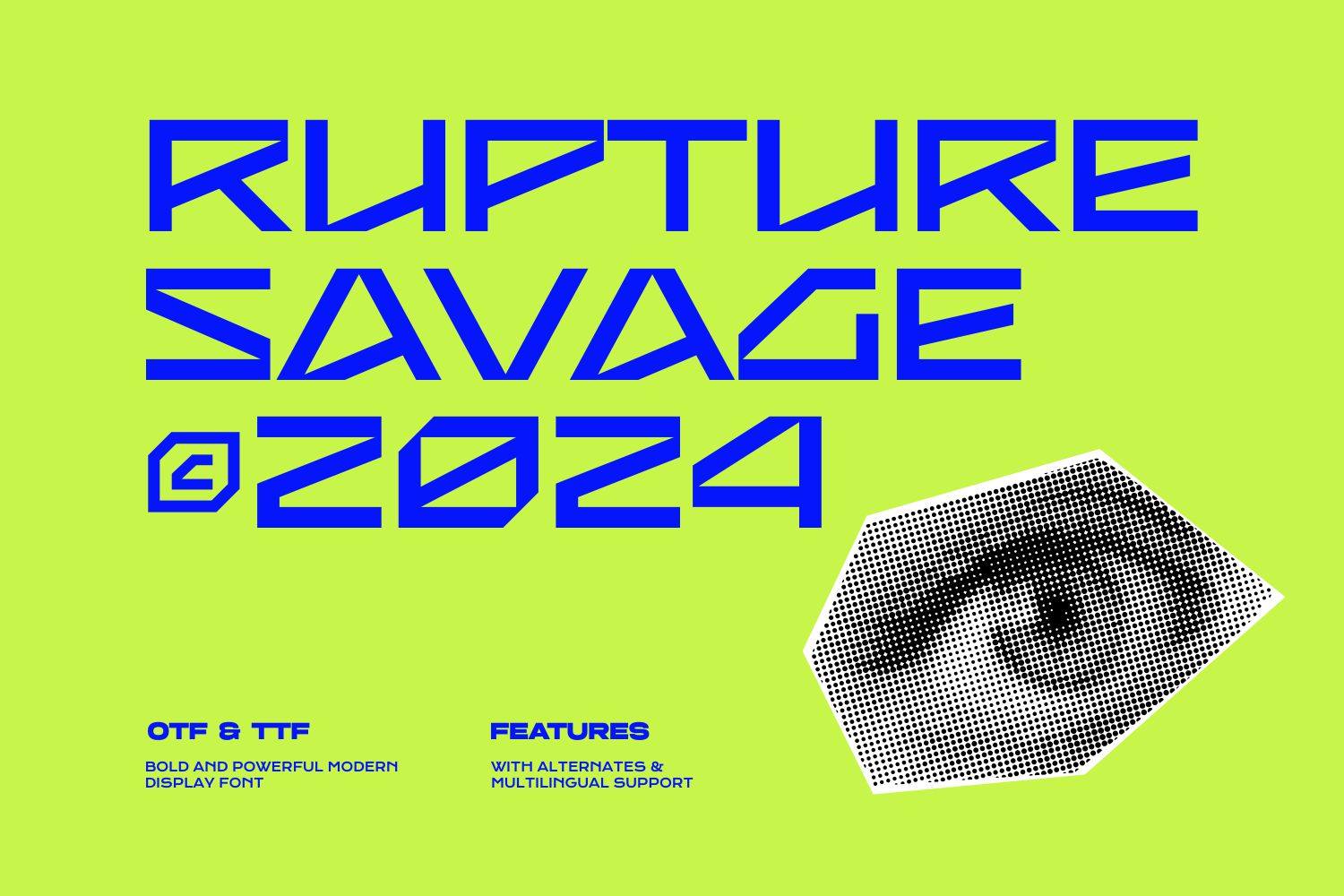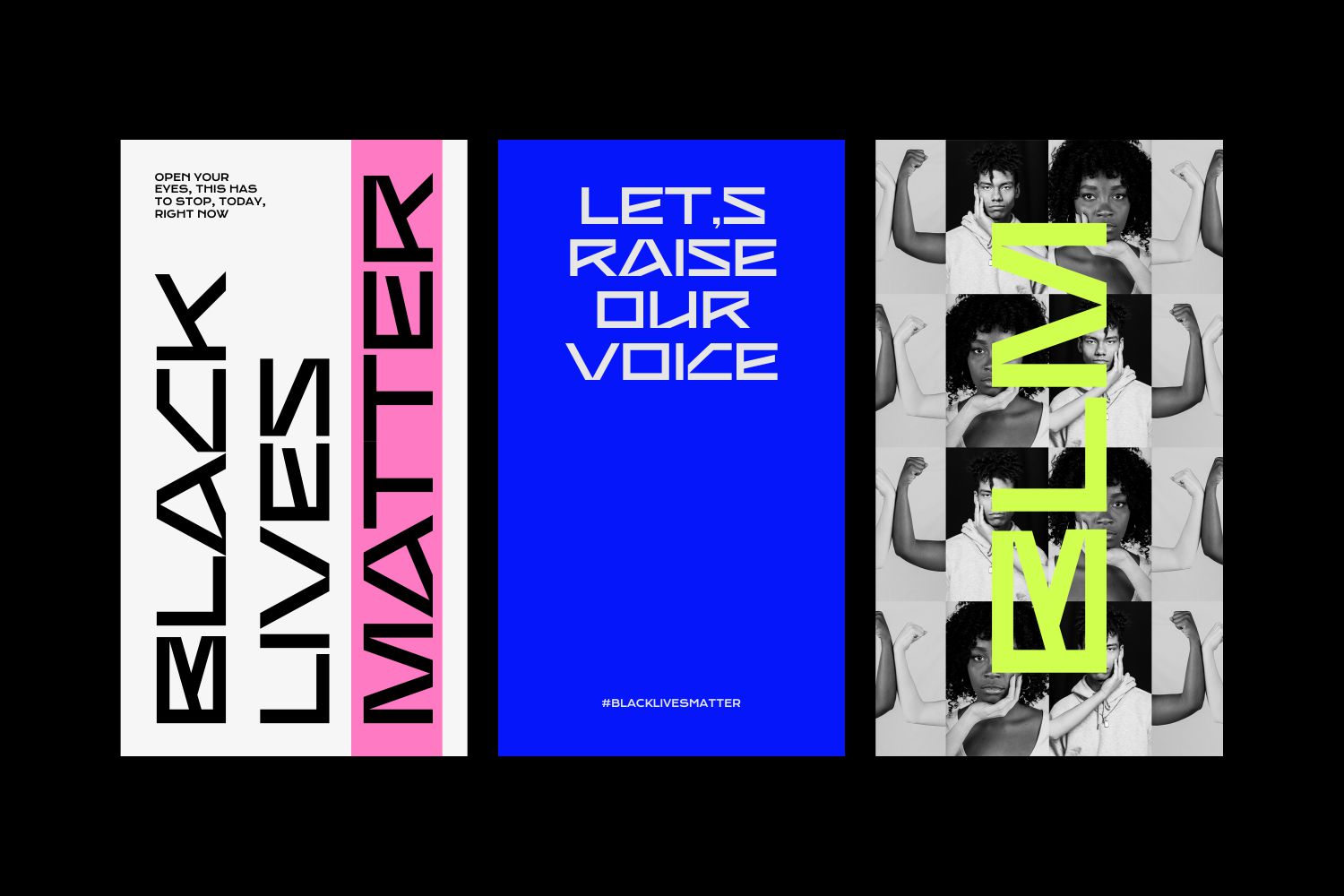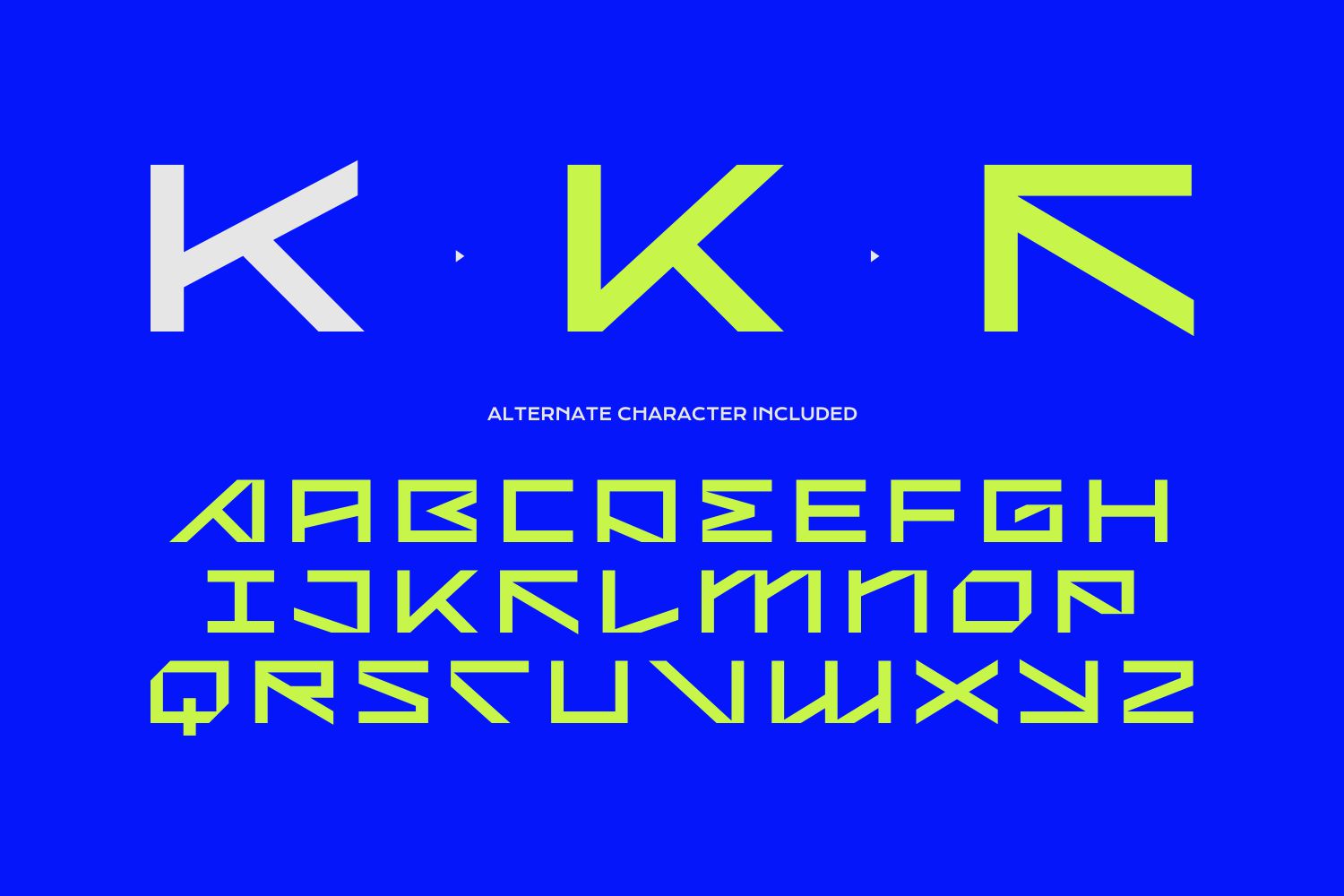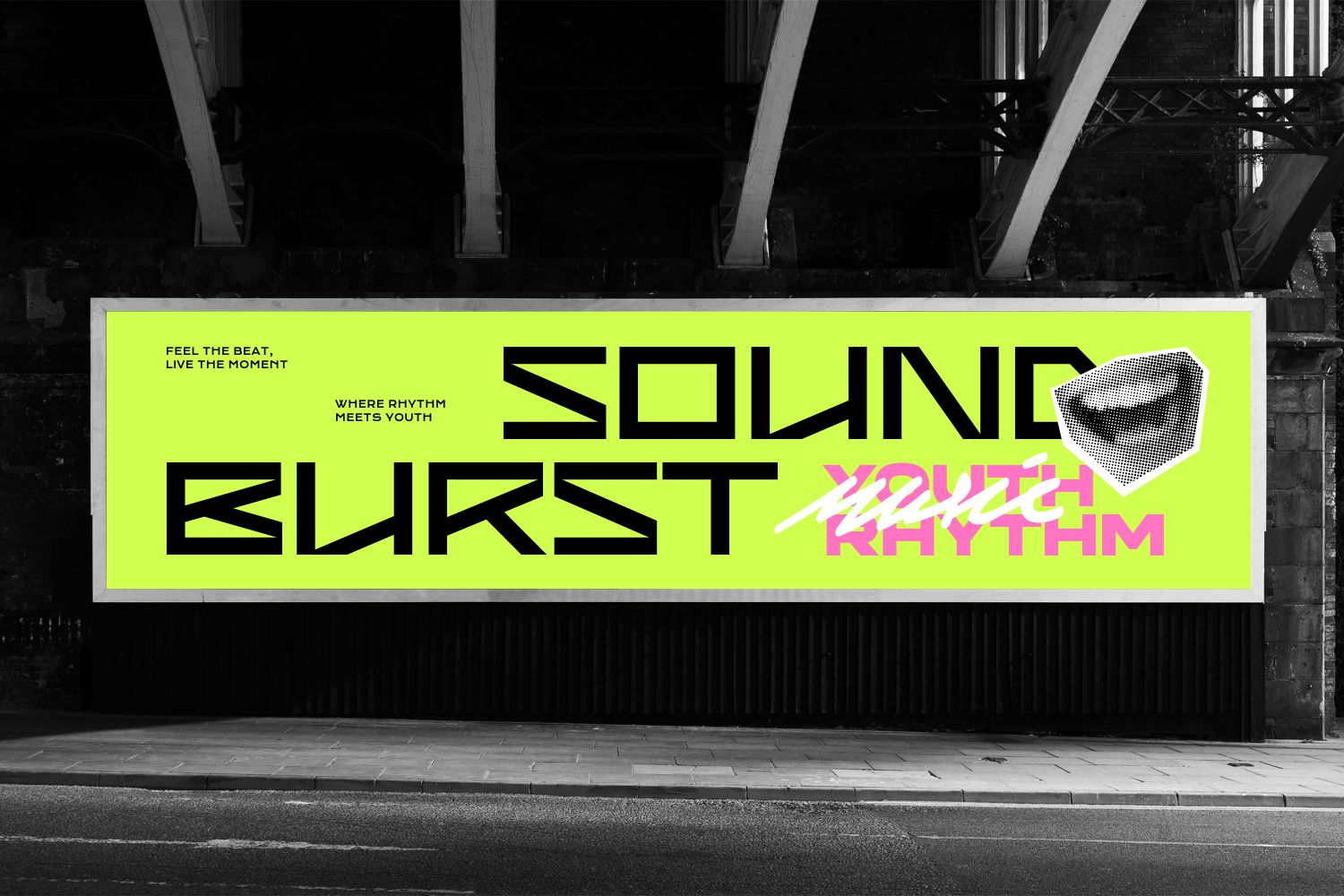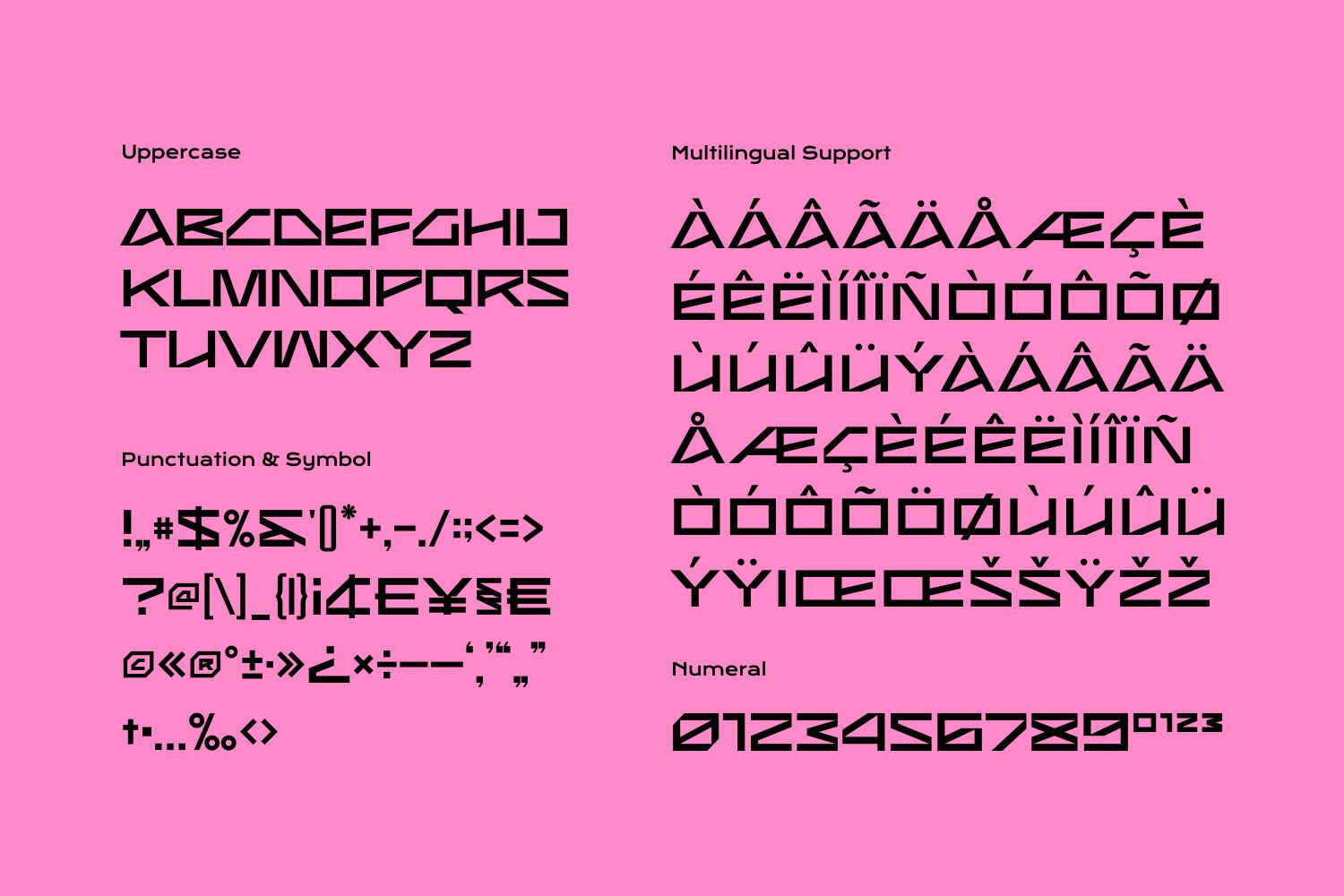
Rupture Savage is a futuristic and angular display font designed to break convention and command attention. With sharp geometric cuts and an aggressive stance, this typeface is perfect for bold headlines, protest posters, youth-centered campaigns, and music festival branding. Its loud, disruptive shapes exude strength and modernity, making every word feel like a statement.
Equipped with multilingual support, alternate characters, and a full set of punctuation and symbols, Rupture Savage ensures versatility across design systems. Whether you’re building editorial graphics, digital covers, or urban-style branding, this font infuses your visuals with energy, rebellion, and a raw, contemporary edge.
Rupture Savage